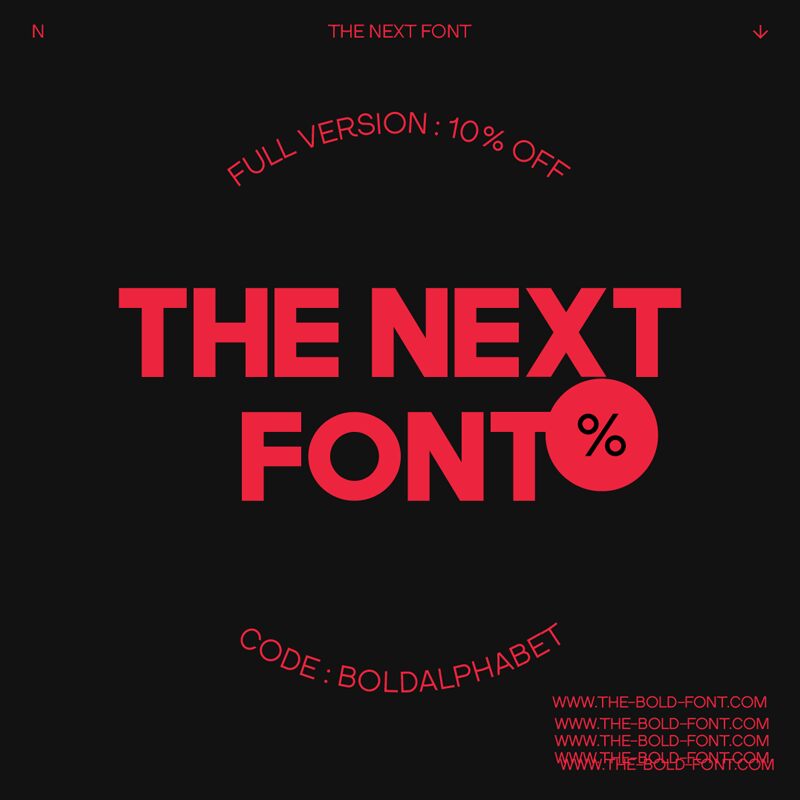
The Next font by Sven Pels is a bold sans-serif font with a geometric and modern style. A clean and minimalistic aesthetic has been achieved which results in a corporate feel that gives the typeface a strong presence. It has an overall commanding appearance making it suitable for going immediately for attention in any project.
Use The Next for posters, flyers, banners, tickets designs, or platforms such as YouTube. Branding identities, including logos and packaging details also benefit from its professional display. Titles of magazines and books can be memorable with the font as well as album covers’ text. Websites and app designs can improve users’ reading experience too!